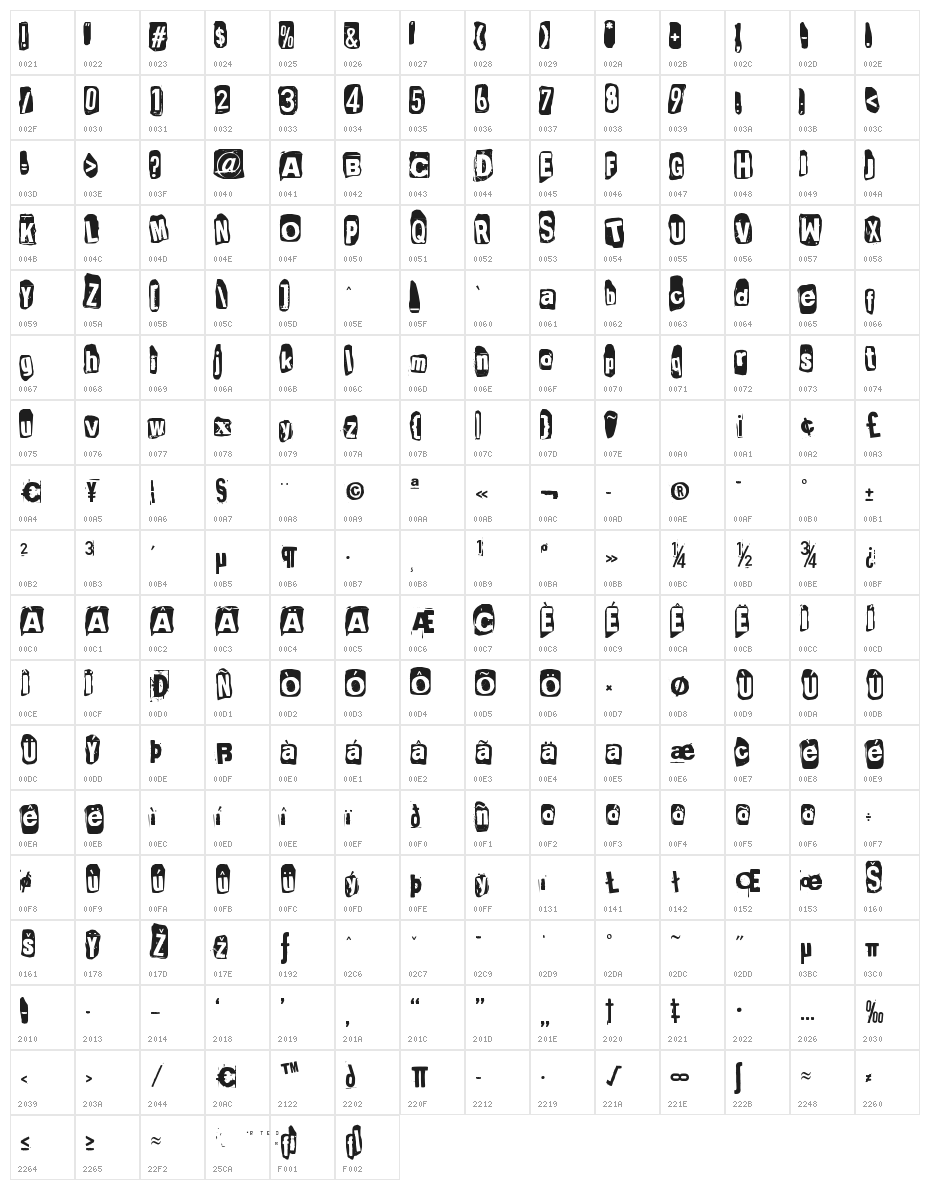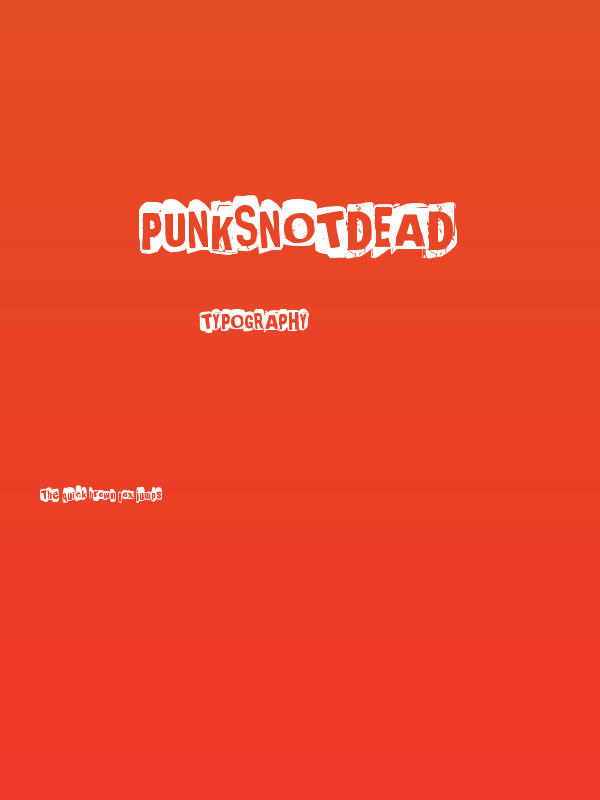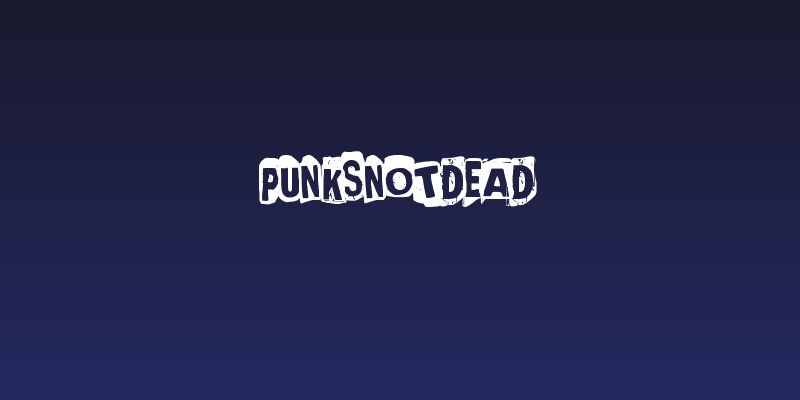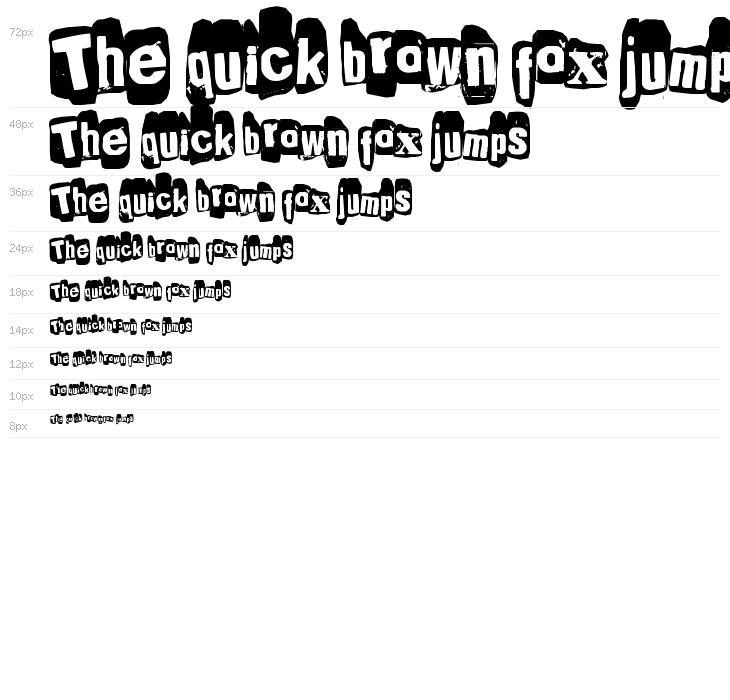
Punksnotdead Font
Punksnotdead Description
This font exudes a rebellious and edgy vibe, characterized by its bold, distressed appearance. The letters are heavily stylized with rough, uneven edges and a grungy texture that gives them a worn, vintage look. Each character appears to be cut out from a different piece of material, adding to the chaotic and dynamic feel. The font is highly decorative, making a strong visual impact with its bold and irregular shapes. It captures the essence of punk culture, making it ideal for projects that require a bold, unconventional statement.
| Overall Style | Vintage, Punk |
| Proposed Projects | Ideal for music album covers, band posters, edgy fashion branding, and any project seeking a bold, rebellious aesthetic. |